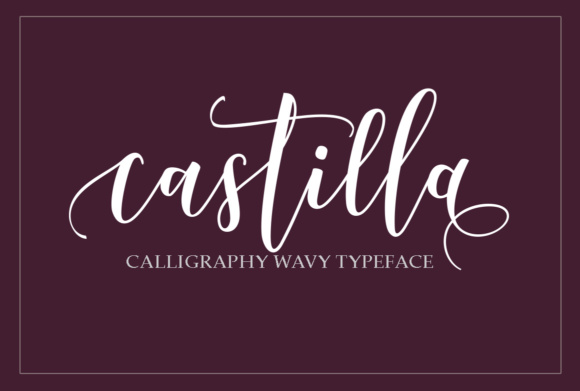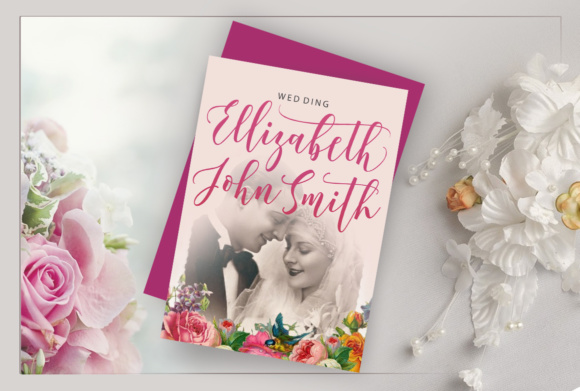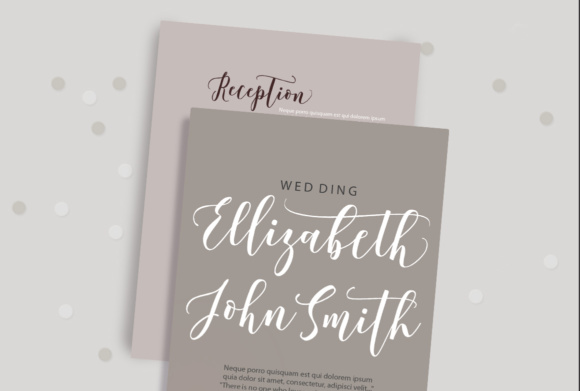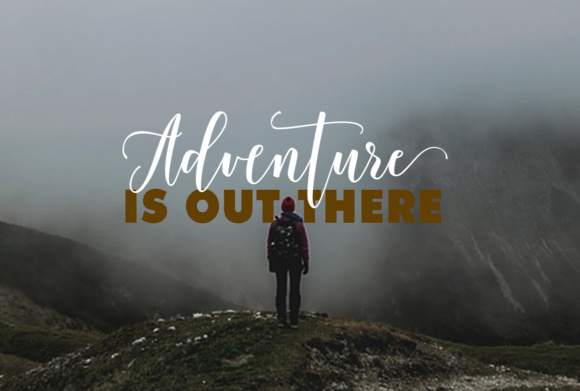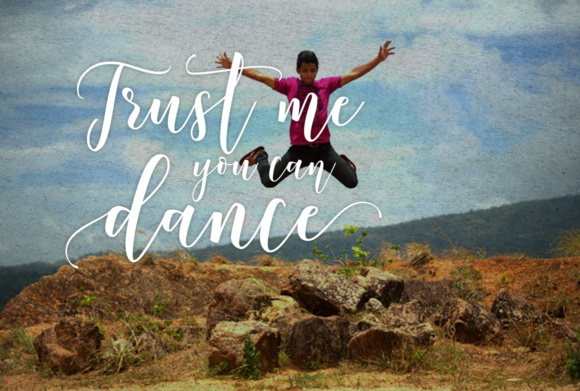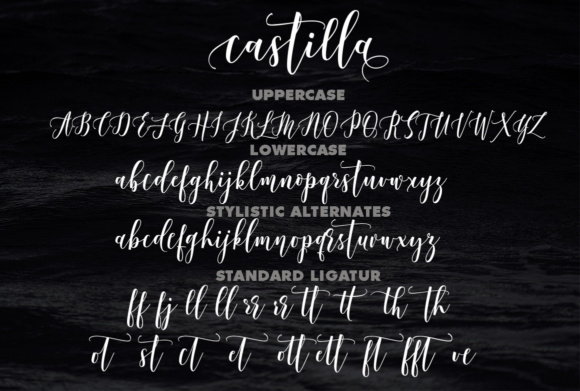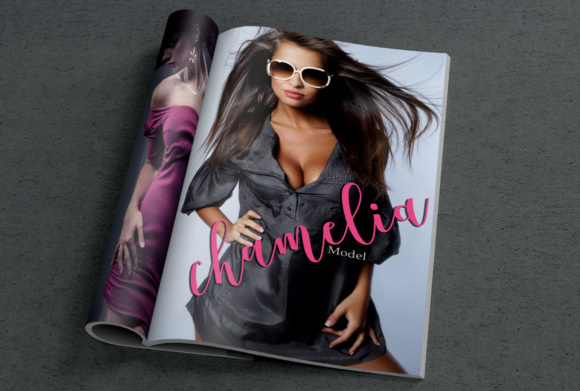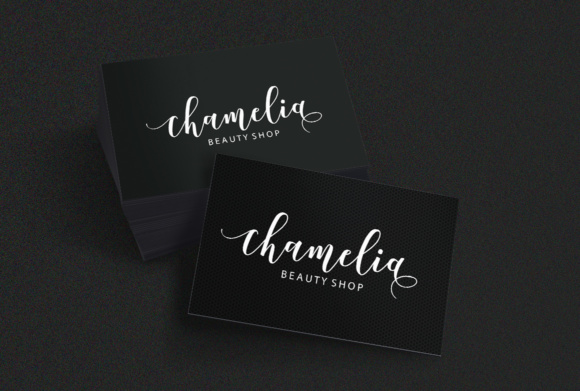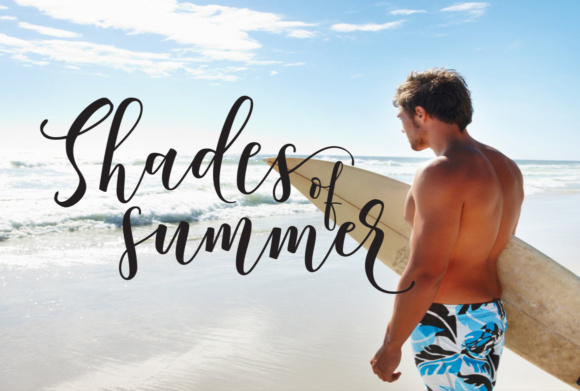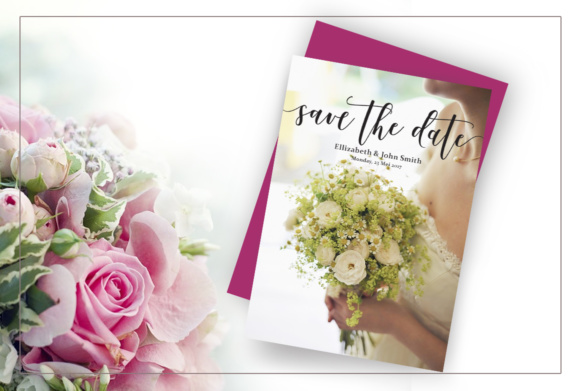
Castilla Font
About Castilla Font
Castilla is a wavy and modern calligraphy font, ideal for use in displays and titles. This font has the ability to make any design stand out, and works in a wide range of design styles.